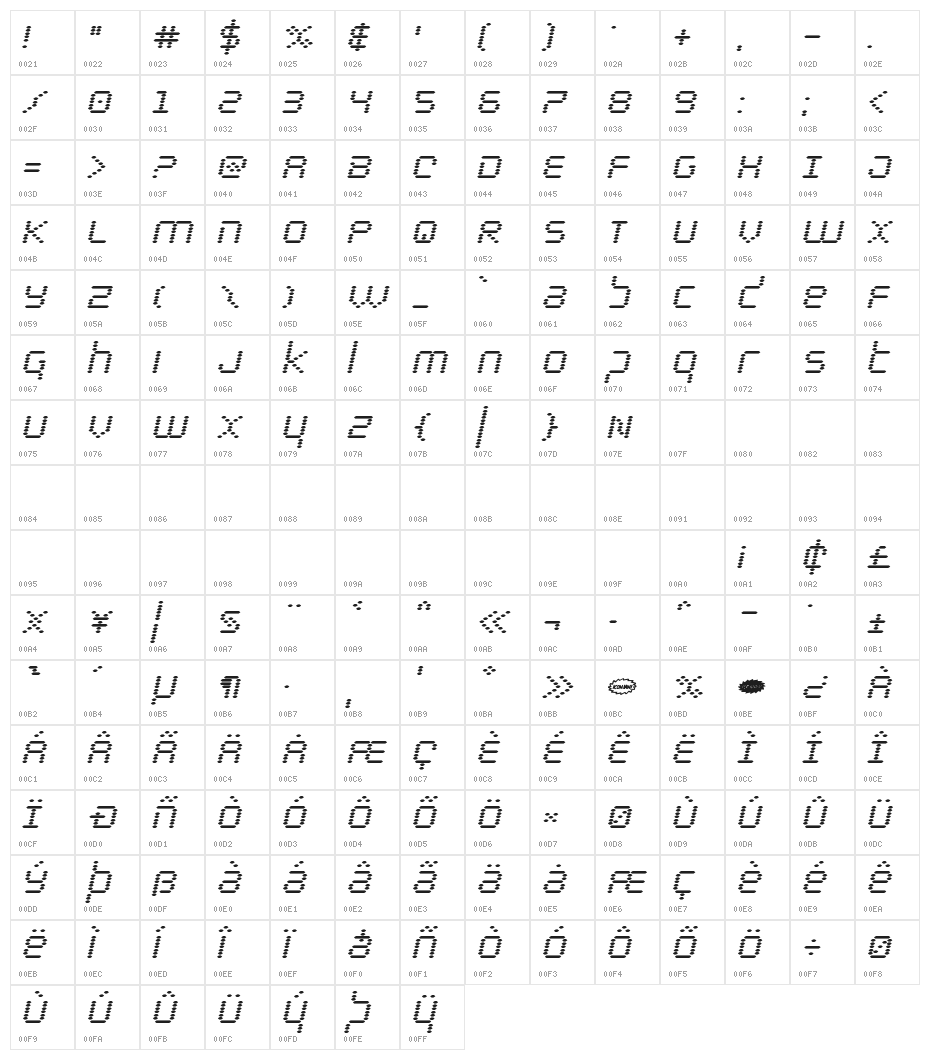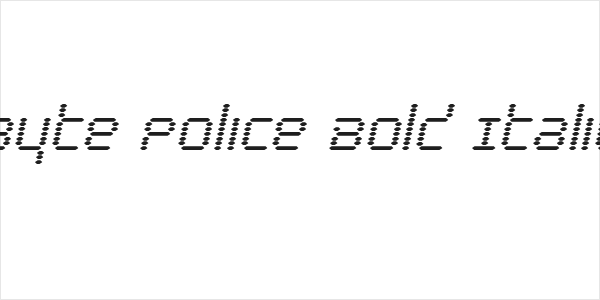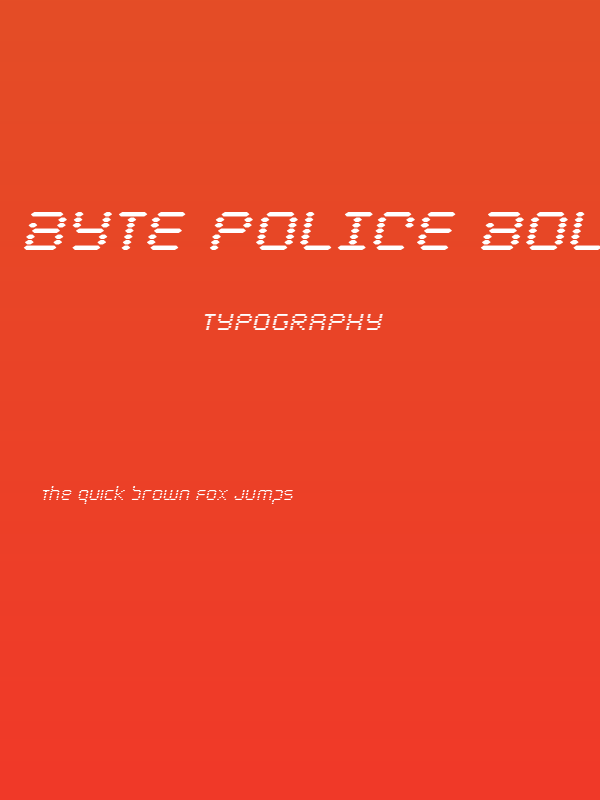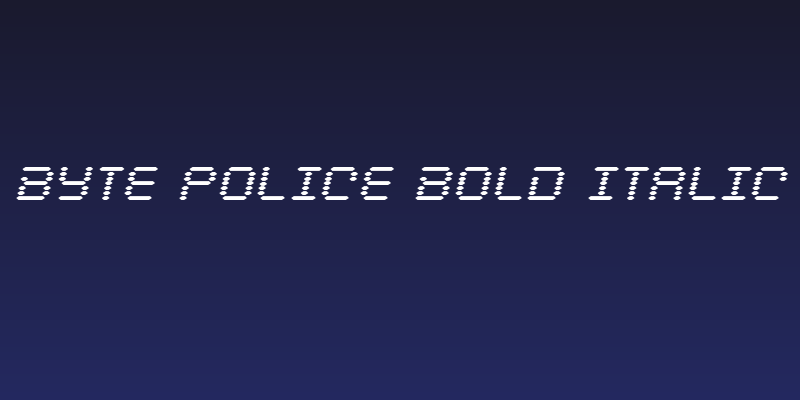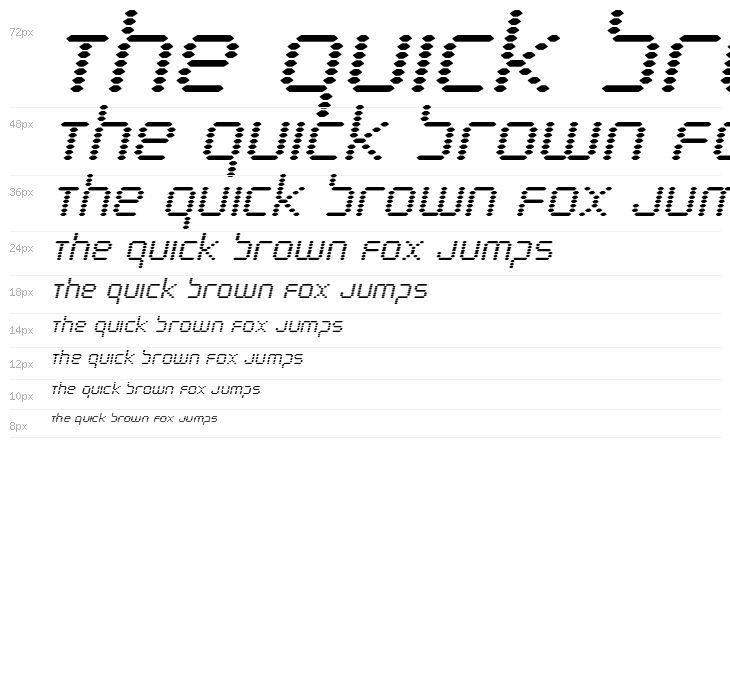
Byte Police Bold Italic Font
Byte Police Bold Italic Description
This font features a unique dotted design, where each character is composed of a series of evenly spaced dots. The style is bold and italicized, giving it a dynamic and modern appearance. The characters maintain a consistent height and width, creating a uniform look across the alphabet. The font includes both uppercase and lowercase letters, numbers, and a variety of special characters. Its distinct appearance makes it suitable for digital and tech-themed projects, where a futuristic or digital aesthetic is desired.
| Use Case | Headlines, Logos, Digital interfaces |
| Proposed Projects | Ideal for tech-themed designs, digital interfaces, futuristic branding, and creative posters. |